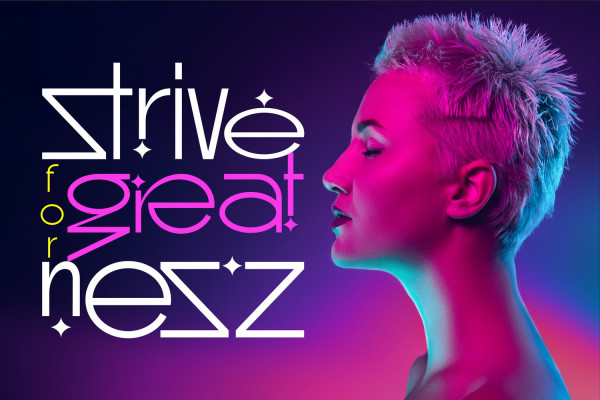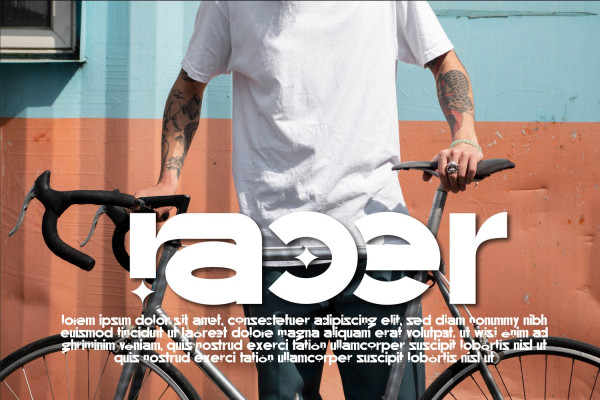
Different Beginning Font
Different Beginning Font is a geometric sans serif that is a bit serious, but not that serious, a font that pushes the boundaries of modern design and brings a touch of enchantment to your projects. This unique geometric typeface is a true alchemy of creativity and precision, combining sharp angles and clean lines to create a visually striking composition. Perfect for headlines, logos, posters, and branding materials, GlideSans demands attention and delivers a strong visual impact.
Different Beginning was built with OpenType features and includes 100 ligatures, alternate, numbers, punctuation, and it also supports other languages.